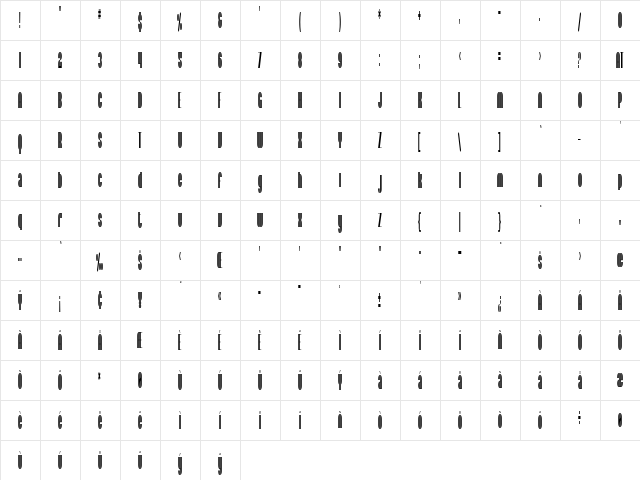
SF Baroquesque Condensed Regular
Design Context for SF Baroquesque Condensed Typeface
SF Baroquesque Condensed takes a measured approach to typography — its balanced proportions and neutral character make it a reliable workhorse for both digital and print work. Its narrow stance lets it pack a punch even in space-constrained designs.